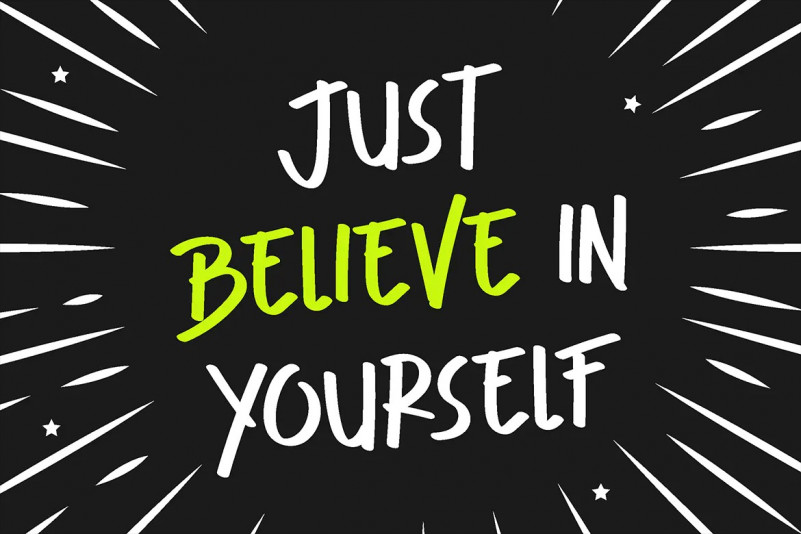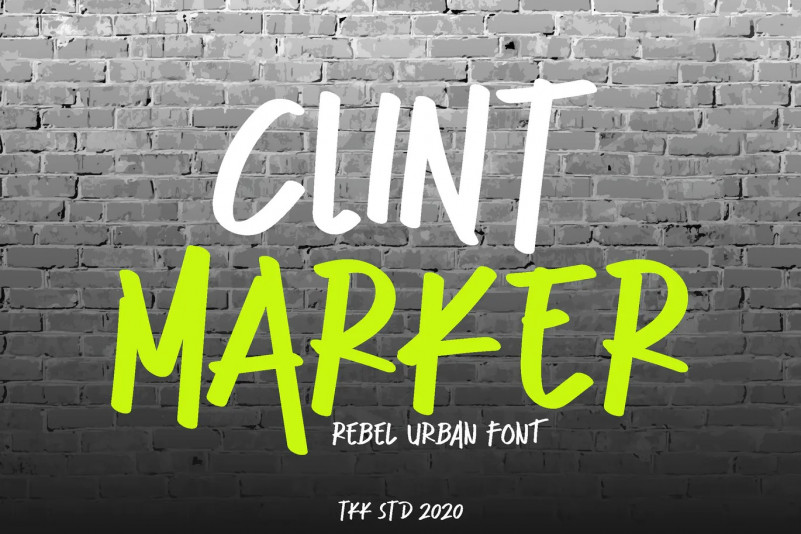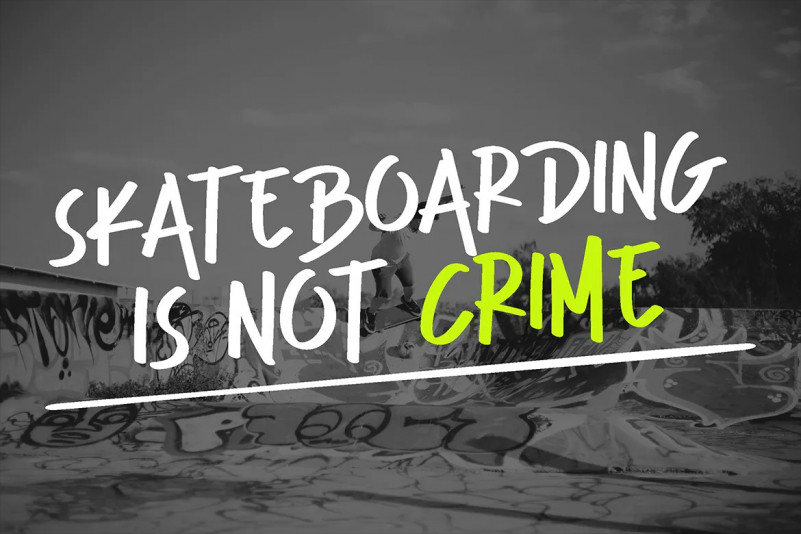
Clint Marker Font
Clint Marker – Rebel Urban Font Taken from the urban spirit and rebelious teenager signature font. Carefree and always stay on the edge of their adrenaline. CLINT MARKER will makes everything you wrote, blessed with unlimited energy.